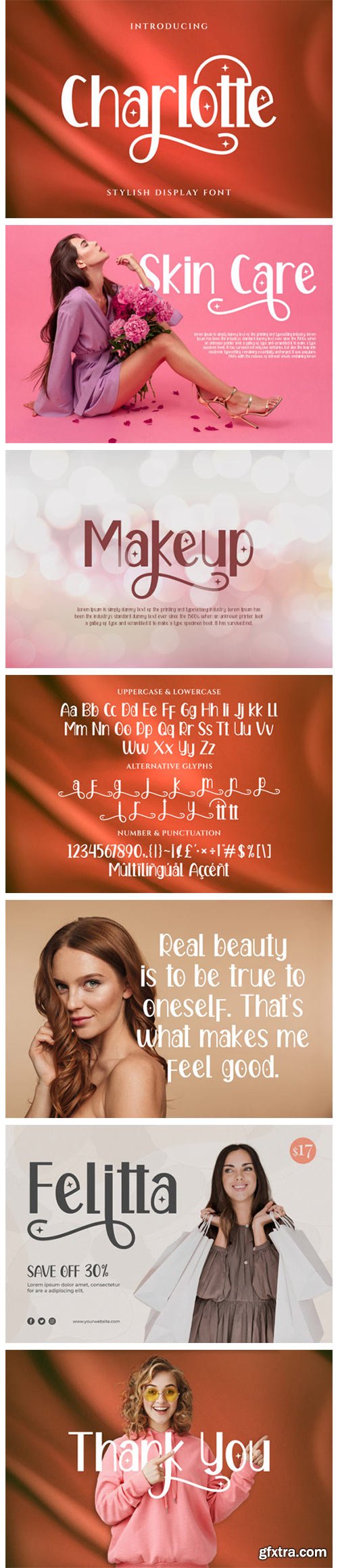
Charlotte Font
Charlotte is a stylish display font. Not too thin and not too thick, balanced and varied, this font was designed to enhance the beauty of your projects.